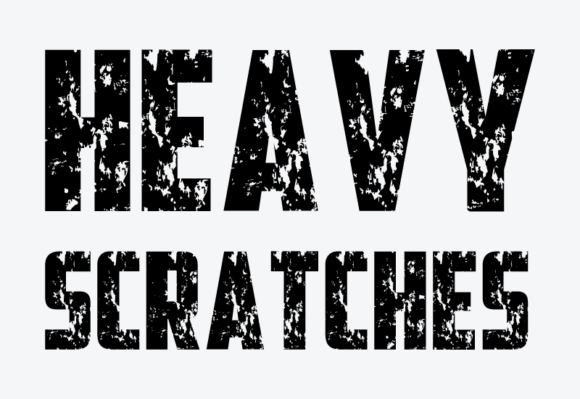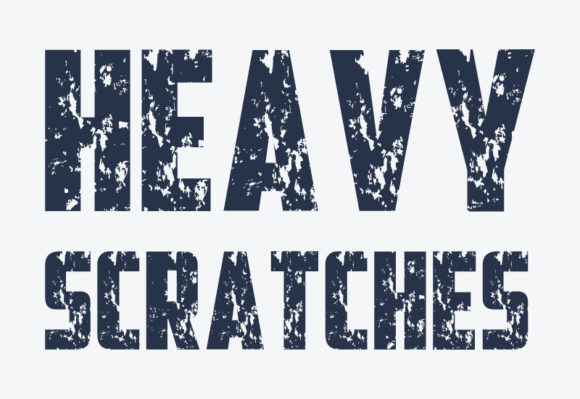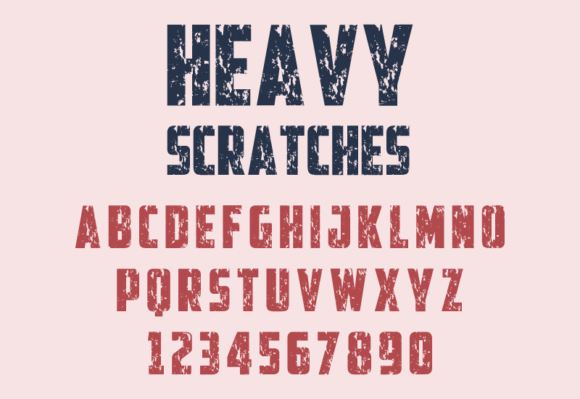
When Raw Energy Meets Design
You’re scrolling through your favorite design platform, searching for the perfect font to give your latest project that extra kick. Suddenly, you stumble upon it – the Heavy Scratches Font. This bold, grunge-inspired typeface screams rebellion and attitude, begging to be used on your next poster, album cover, or streetwear branding project.
Featuring rough textures and scratch-like strokes, the Heavy Scratches Font embodies a raw, authentic spirit that’s perfect for designers who crave individuality and a distressed, handmade vibe. Its bold presence and gritty details make it an ideal choice for projects that demand attitude and a rebellious edge.
Heavy Scratches Font Key Features
- Size: The font includes multiple weights, ranging from Light to Black, providing flexibility for designers and typographers.
- Resolution: Optimized for high-resolution displays, ensuring the font remains crisp and clear at various zoom levels.
- Unique Characteristics: The font features a distressed, hand-scratched aesthetic, adding a tactile feel to digital designs.
- Language Support: Supports multiple languages, including Latin, Cyrillic, and Greek, making it suitable for global designs and projects.
Heavy Scratches Font Review
Heavy Scratches Font is a unique, hand-crafted font that stands out from the crowd. ✨ The bold, textured design is perfect for adding a touch of ruggedness to any project. It’s great for use in headings, titles, or any situation where you want to make a statement.
Here are some of the font’s strengths:
- ✨ Distinctive texture and design that grabs attention
- ✨ Highly customizable, allowing for a wide range of styles
- ✨ Great for use in headings, titles, or other prominent text
- ⚠️ May be difficult to read in small sizes or at a distance
- ⚠️ Not suitable for use in body text or large blocks of text
- ⚠️ May require additional styling to achieve desired look
Overall, I’m impressed with the creativity and attention to detail that went into designing Heavy Scratches Font. While it may have some limitations, it’s a great choice for any project that needs a bold, eye-catching font. With the right styling and usage, this font can add a unique touch to any design.
The Heavy Scratches font is ideal for creating distressed or vintage-style designs. It’s commonly used in:
1. Grunge or alternative music designs.
2. Retro-themed posters or advertisements.
3. Edgy or rebellious brand identities.
To get the most out of the Heavy Scratches font, experiment with different font sizes, colors, and styles to create a unique and eye-catching design.
Font 1: Bleeding Cowboy
Bleeding Cowboy is a distressed font that features a mix of rough textures and worn edges. It’s ideal for designs that require a vintage or retro feel, such as posters, flyers, and album covers.
Compared to Heavy Scratches Font, Bleeding Cowboy has a more rugged and weathered look, making it suitable for designs that need a stronger emphasis on wear and tear.
Font 2: Felt Tip Pen
Felt Tip Pen is a bold, handwritten font that mimics the look of a felt-tip pen. It’s perfect for designs that require a playful, casual tone, such as advertisements, social media graphics, and children’s products.
Felt Tip Pen is more polished and refined compared to Heavy Scratches Font, making it suitable for designs that need a more approachable and friendly feel.